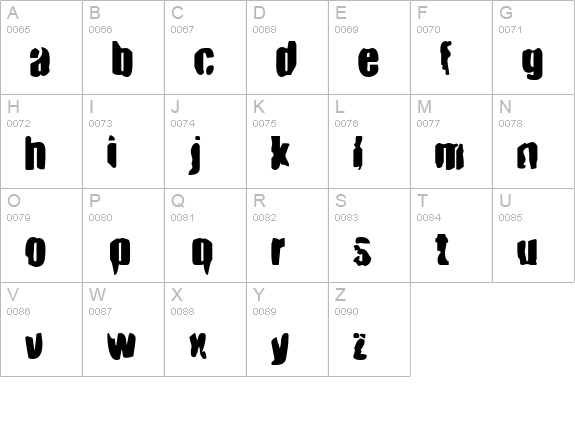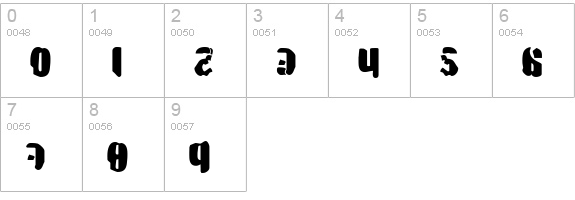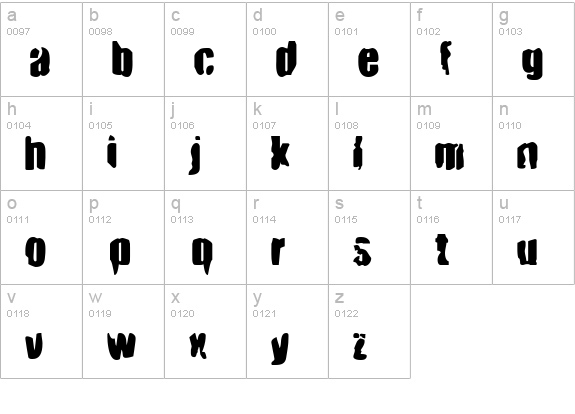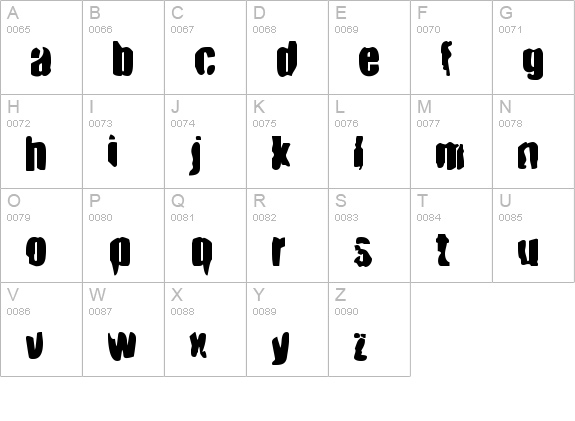
BN Smash Font Details
Introducing BN Smash font, a dynamic and eye-catching typeface that exudes energy and excitement. This bold and modern font is perfect for making a statement and grabbing attention in your designs. With its strong, solid lines and distinctive style, BN Smash is sure to leave a lasting impression. Best of all, BN Smash is available for free download at FontsMarket.com. Whether you're working on a poster, logo, website, or any other project, this versatile font will add a touch of flair and creativity. Don't miss out on the opportunity to enhance your designs with the striking presence of BN Smash font. Download it now and let your creativity shine!